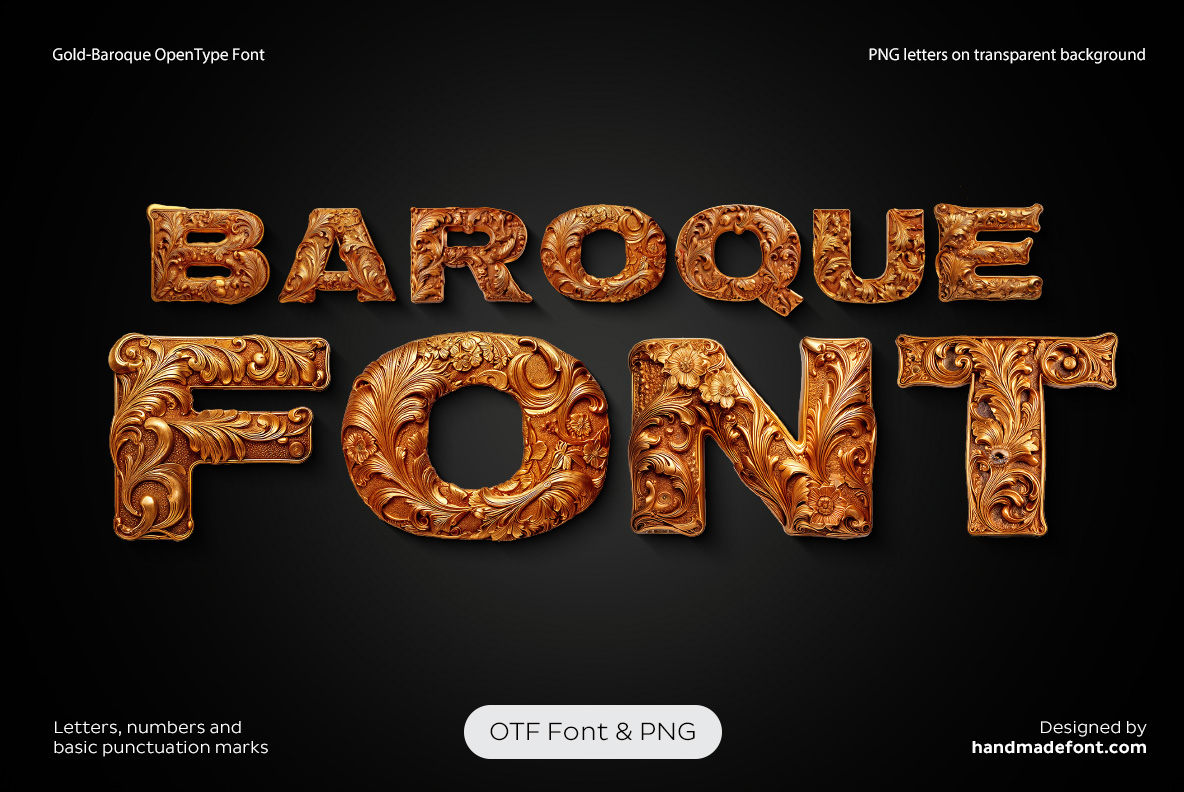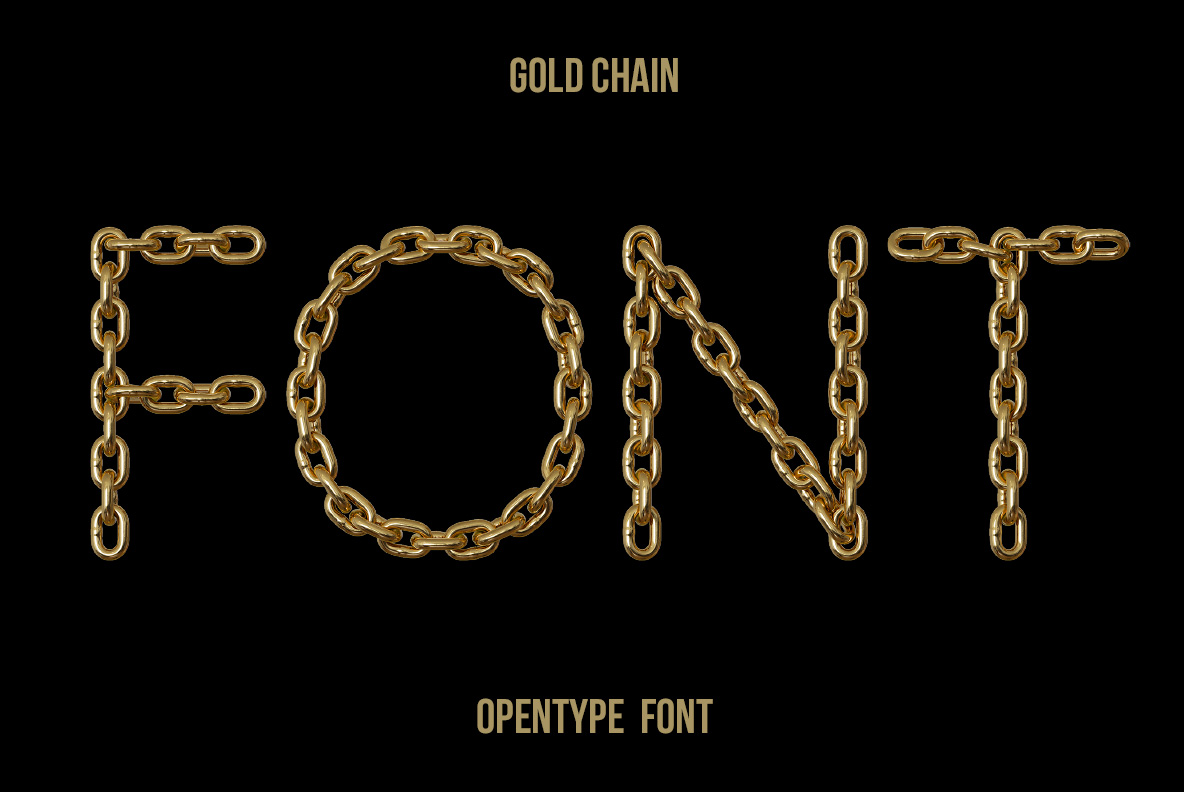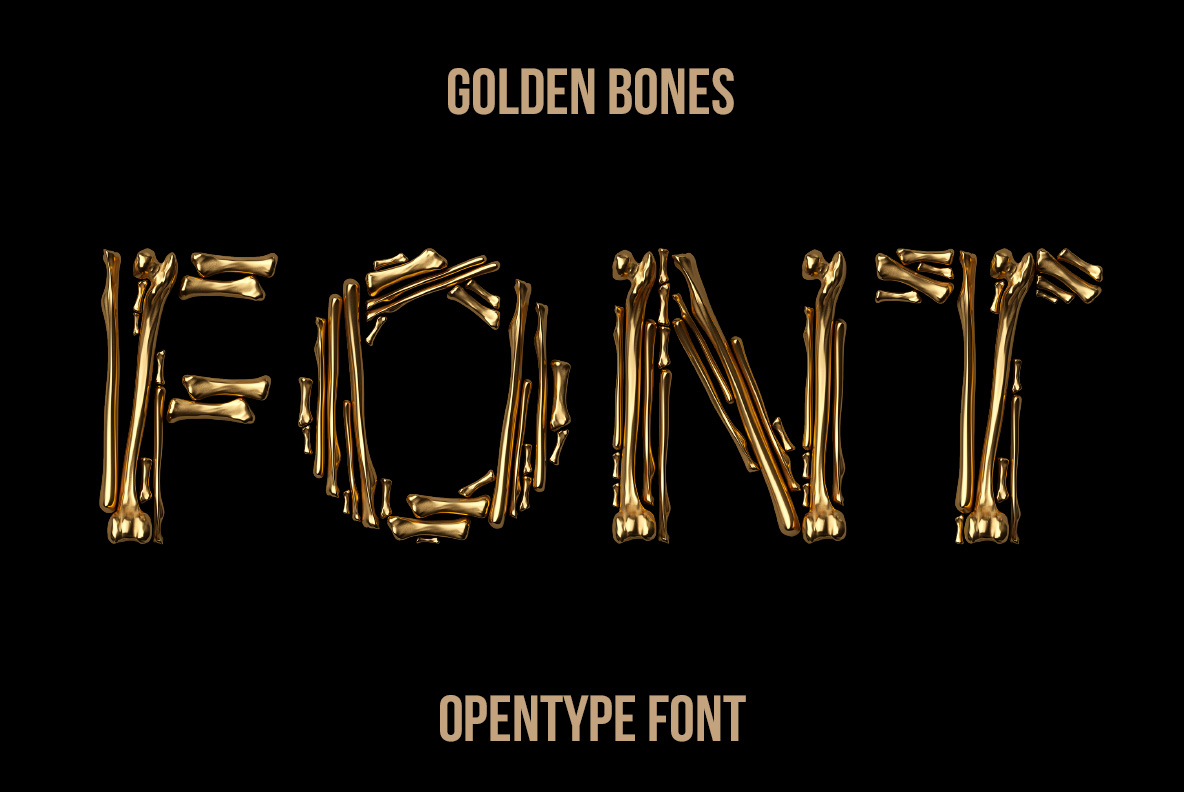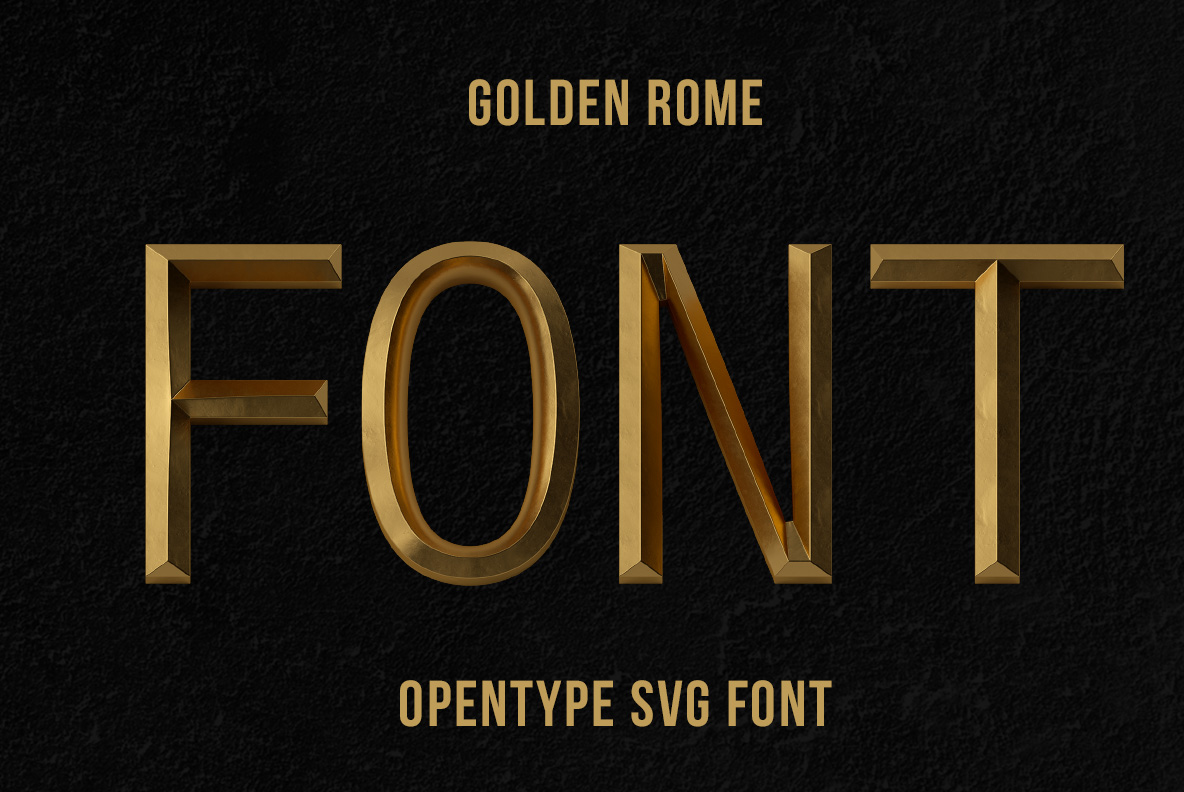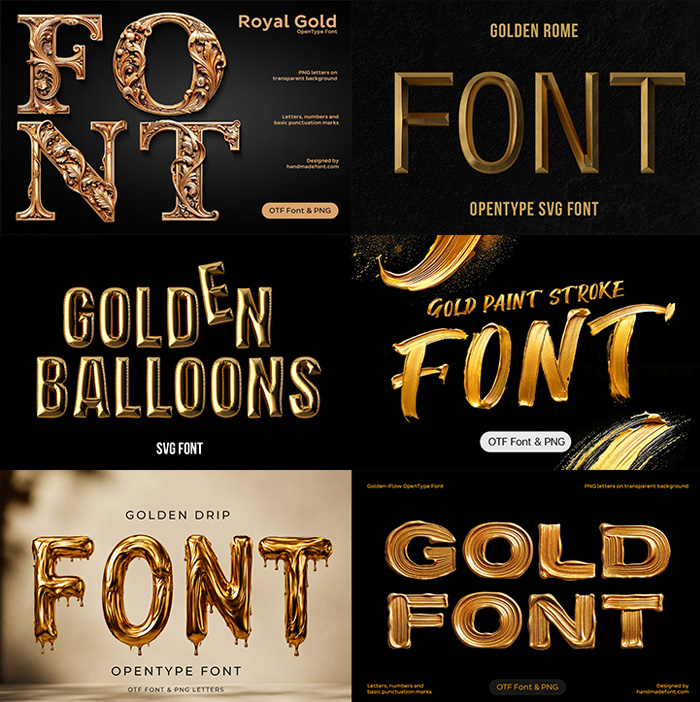
Gold Fonts – Creative Golden Typefaces & Lettering
Gold Fonts turn typography into something precious, bold and impossible to ignore. Explore golden letters shaped from flowing metal, chains, paint strokes, balloons and ornate details. This Handmadefont collection brings together unusual OTF typefaces and individual PNG letters for posters, branding, packaging, headlines and creative design projects that need the unmistakable shine of gold.
Gold Fonts is the brightest shelf here and the most demanding one to use. Gold has almost no colour of its own — it is nearly all reflection — so every letter on this page was built with a light source in mind. Put one on a dark ground and it glows. Drop the same letter onto flat white and it turns into a beige smear. That one rule decides whether these will work for you.
The Metal That Photographs Best
Gold Baroque Font with richly decorated golden letters featuring ornate floral details
Gold Baroque Font
Gilded acanthus carving filling every counter, lit against black.
Gold Chain Font with letters constructed from shiny linked golden chains on a black background
Gold Chain Font
Fine chain, one link wide, drawn round each letter like a pendant.
Gold Paint Stroke Font with expressive golden brushstroke letters on black
Gold Paint Stroke Font
Gold paint brushed on by hand, with dust thrown off the end of the stroke.
Golden Balloon Font with shiny inflated gold letters resembling metallic balloons
Golden Balloon Font
Gold foil balloons, seams crimped, inflated tight enough to squeak.
Golden Bone Font with letters assembled from polished gold-colored bones
Golden Bones Font
Polished gold bones, ball joints and all, stacked into capitals.
Golden Chain Font with large letters formed from realistic polished gold chain links
Golden Chain Font
Heavy cable chain, links thick enough to moor something.
Golden Drip Font with glossy molten gold letters and dripping metallic details
Golden Drip Font
Molten gold running off the bottom of every letter and pooling below.
Golden Flow Font with smooth sculpted gold letters featuring flowing ribbed texture
Golden Flow Font
Poured gold, thick and rounded, set before it could level out.
Golden Rome Font with clean monumental metallic letters inspired by classical Roman forms
Golden Rome Font
A plain gold serif on black. Roman, restrained, no ornament at all.
Royal Gold Font with richly decorated golden letters featuring carved floral ornament
Royal Gold Font
Carved gold ornament wrapped round a classical serif, leaves and all.
Gold Fonts and the Price of Looking Expensive
Awards, anniversaries and anything with the word premium on it: certificates, trophies, gala invitations, milestone birthdays. Spirits and perfume packaging take the poured and carved ones, and so do hotels and jewellers. The chain and skull ones go somewhere quite different — hip-hop covers, streetwear, club flyers. Keep the setting dark and the word count low, and none of them will let you down.